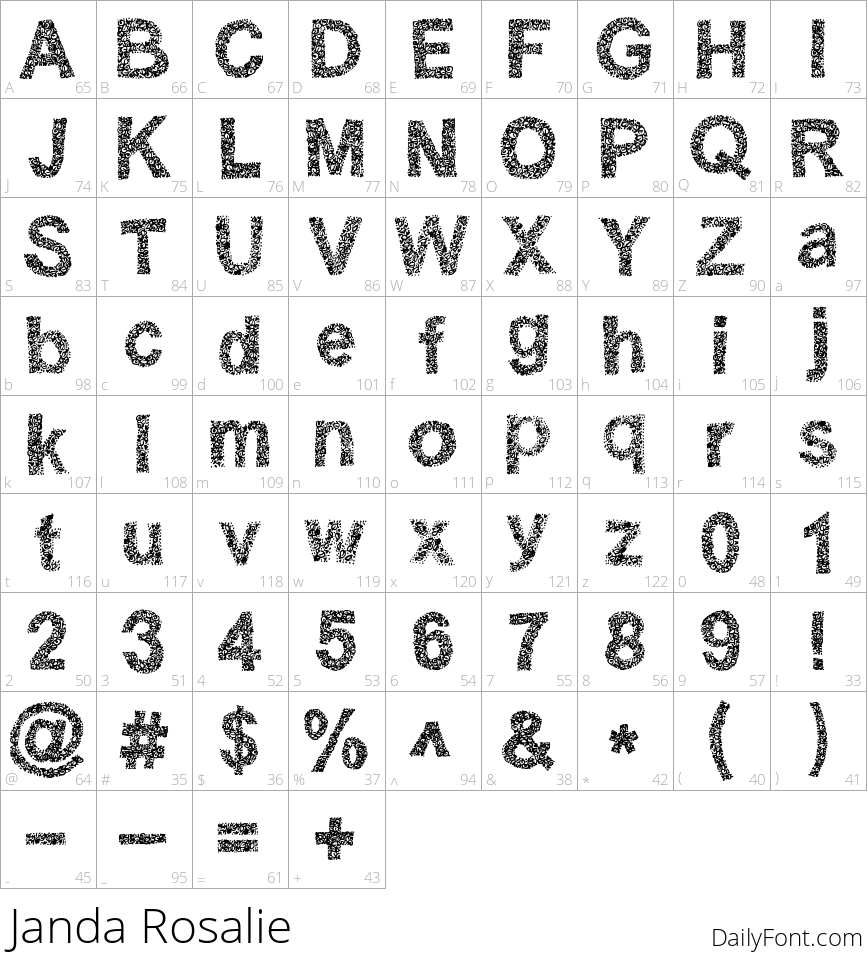
Janda Rosalie by Kimberly Geswein
Whimsical sans-serif font with hand-drawn flair, ideal for playful designs and adding personality to text-based projects.